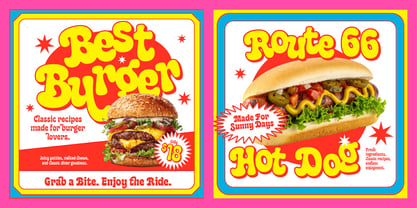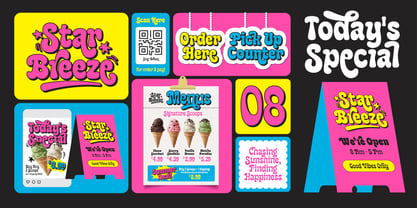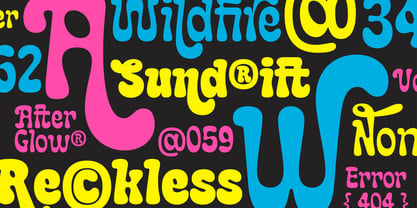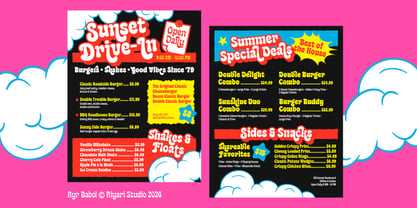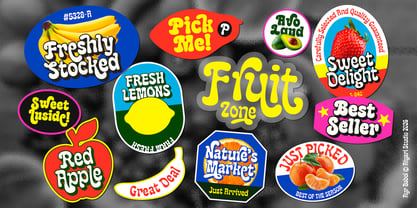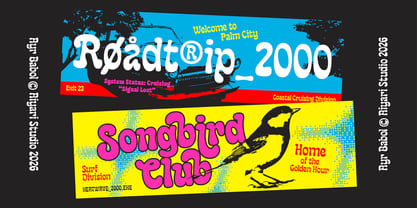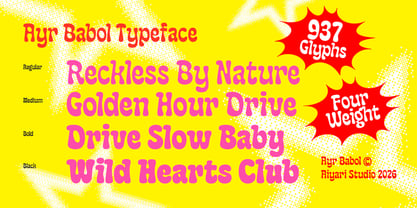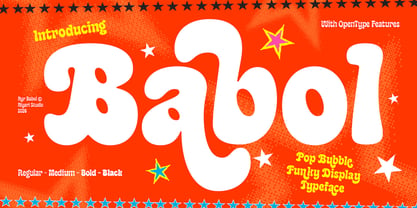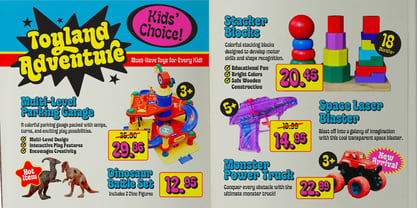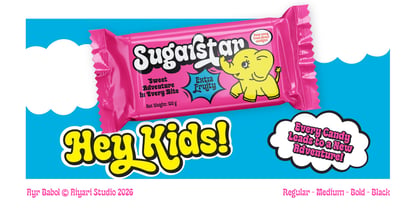
Ayr Babol
La familia tipográfica Ayr Babol fue diseñada por Ricky Rinaldi y publicada por Aiyari. Ayr Babol contiene 3 estilos y opciones de paquete familiar. Más información sobre esta familia
Babol is a display typeface built entirely from generous, rounded bubble forms heavy, warm, and unmistakably retro. Its counters puff outward and its strokes balloon into soft, seamless curves, so words seem to inflate rather than sit still on the page. Terminals melt together, corners disappear, and the whole face carries the loose, flowing rhythm of ink-drawn 1960s signage.
There's an easy, feel-good confidence to it. Babol belongs on anything that wants to shout while still smiling packaging that jumps off a shelf, posters that stop a scroll, branding that refuses to take itself too seriously.
Four weights (Regular, Medium, Bold, Black) span a wide tonal range, and a rich library of stylistic alternates and ligatures 937 glyphs in total. Gives you room to customize letter combinations and build headlines that feel drawn by hand.
Extended Latin support languages, plus the full complement of punctuation, numerals, and symbols.
Aiyari Studio was founded in 2015 by Ricky Rinaldi, a renowned graphic and type designer from Bandung, Indonesia. Aiyari Studio's typefaces are characterized by their retro and nostalgic style, making them a valuable asset for designers aiming for a modern yet nostalgic style. It doesn't matter whether you're designing packaging, editorial layouts, or websites, Aiyari Studio typefaces will elevate your work and amplify its sense of timeless sophistication.